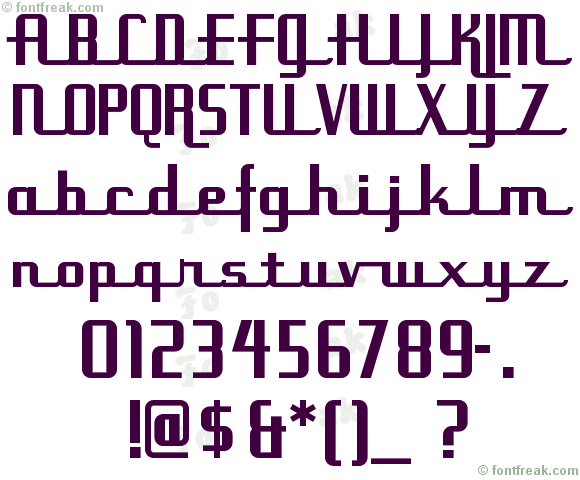
UppenArmsNF Medium
Uppen Arms, designed by Nick Curtis, is a captivating display font that falls under the category of decorative typography. This unique typeface showcases an engaging blend of artistic flair and modern design, making it a standout choice for various creative projects. The Uppen Arms font features a medium stroke weight, which strikes a balance between readability and visual impact. The letters exhibit a playful yet sophisticated character, enhanced by subtle decorative elements that infuse personality into each glyph. The spacing is well-considered, allowing for legibility while maintaining an artistic touch that enhances the overall aesthetic.
This font is particularly well-suited for a range of creative applications. Its charming style makes it an excellent choice for wedding invitations, where it can convey elegance and romance. Additionally, Uppen Arms shines in movie posters, where its distinctive look can help capture the essence of a film and attract audience attention. Restaurant menus can also benefit from this font, as it adds a touch of creativity that complements various culinary themes. Lastly, small business branding and promotional materials can leverage Uppen Arms to create a memorable visual identity that stands out in a competitive market.
What truly sets the Uppen Arms font apart is its ability to blend whimsy with professionalism, ensuring that it draws attention without compromising clarity. With its unique visual characteristics and diverse applications, the Uppen Arms font free download offers an opportunity to elevate your design projects and create lasting impressions.